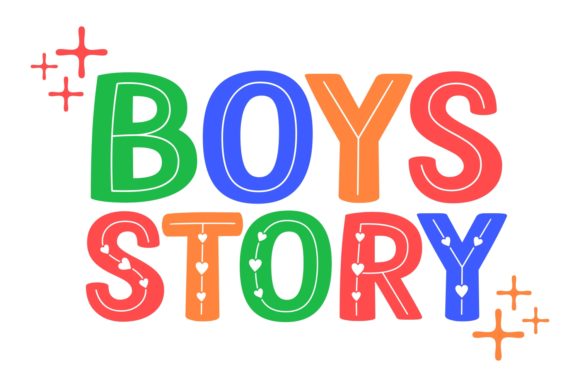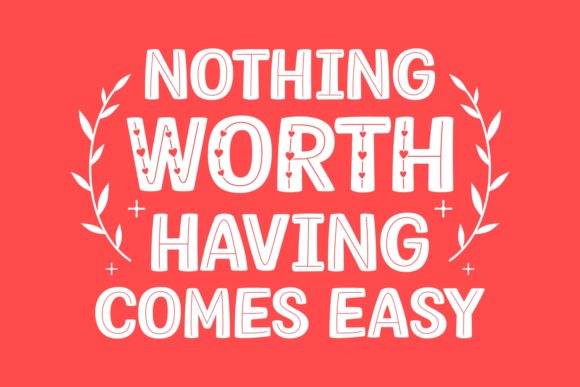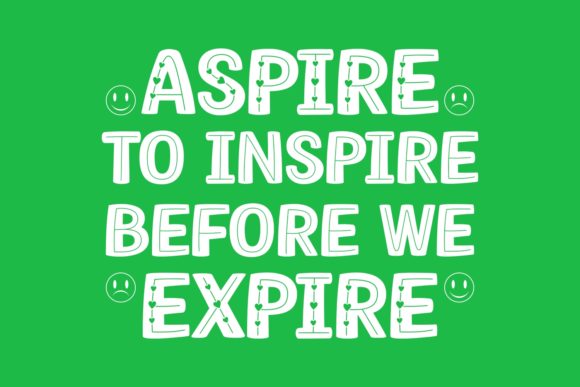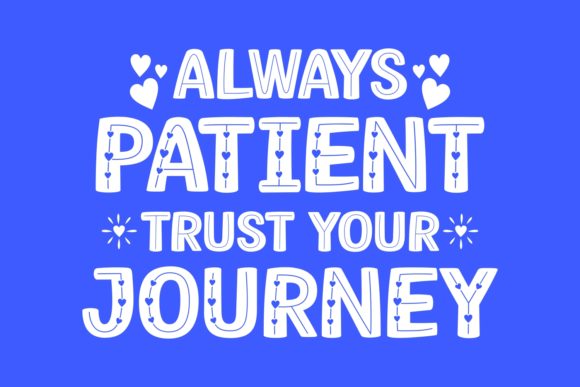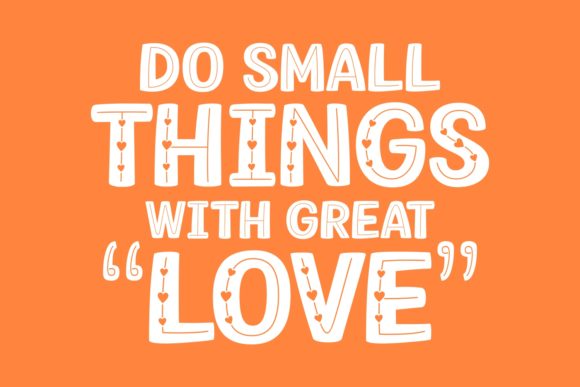
Boys Story Font
About Boys Story Font
Boys Story is a sweet, soft hand-lettered script. The playful rounded characters make it the perfect font for creating stunning crafts. Boys Story comes packed with heart-themed letters, that will allow you to add a decorative touch within seconds.